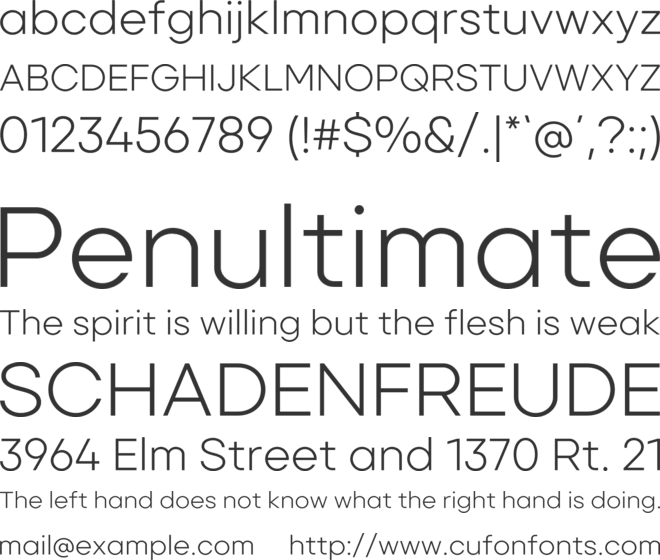
Primeform Pro Font
Mihai Sorin
This is new geometric family sans inspired by modern and elegant typeface. With 421 alternative characters and 19 stylistic sets, you get unlimited power to take your creativity to the next level. The first typeface of its kind, Primeform Pro is meticulously designed to adapt its personality to any project.
Primeform Pro is the smartest choice for any creative project. With a single click, you can change its typographic personality and adapt it to your desired style. Choose between 3 predefined styles or create your own style by combining the hundreds of alternate characters available.